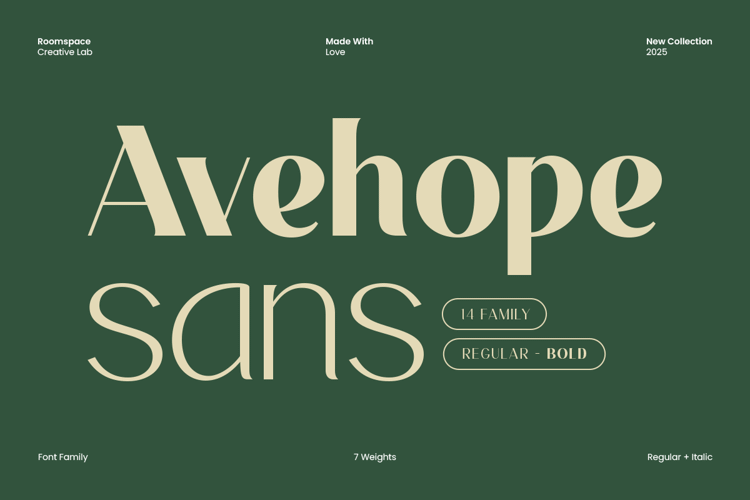
Avehope Font
Avehope Sans – Modern Geometric Font Family
Avehope Sans is a modern geometric sans-serif family with 14 fonts, designed for branding, web, and editorial use. Clean, balanced, and timeless.